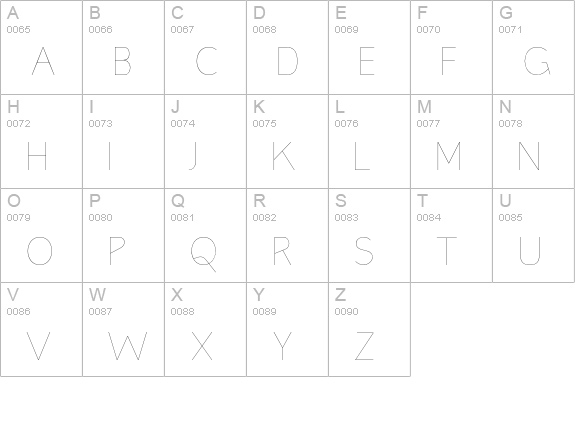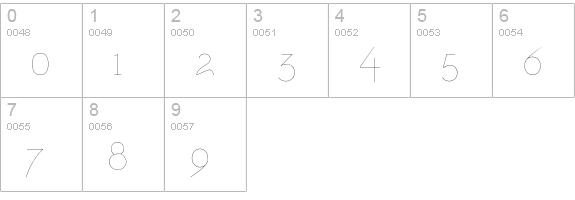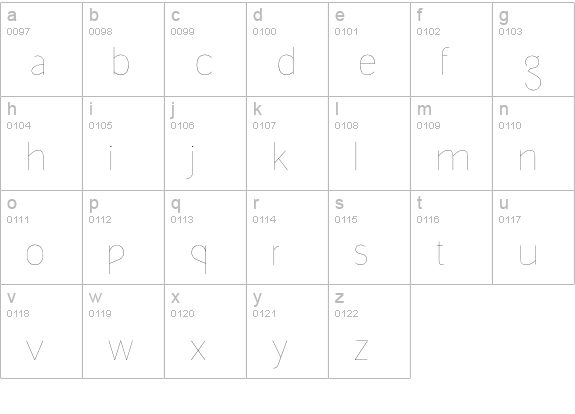
Paris Pro Hairline is an exceptionally fine, almost invisible variant in the Paris typeface family \xE2\x80\x94 well suited to high-end editorial, fashion, and luxury display use.
Paris Pro Hairline font is a sophisticated and elegant typeface that exudes a sense of modernity and style. Its sleek and refined lines make it ideal for luxury branding, fashion magazines, and high-end design projects. The delicate hairline strokes give this font a sense of delicacy and grace, making it a perfect choice for projects that require a touch of sophistication. What's even better is that Paris Pro Hairline font is available for free download at FontsMarket.com. So you can add this beautiful typeface to your collection without any cost. Don't miss out on the opportunity to enhance your designs with this exquisite font that will surely elevate your projects to the next level.